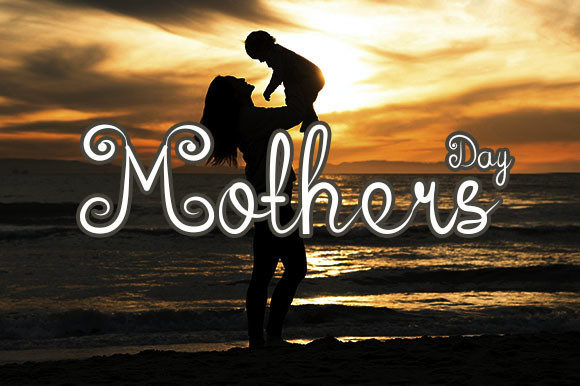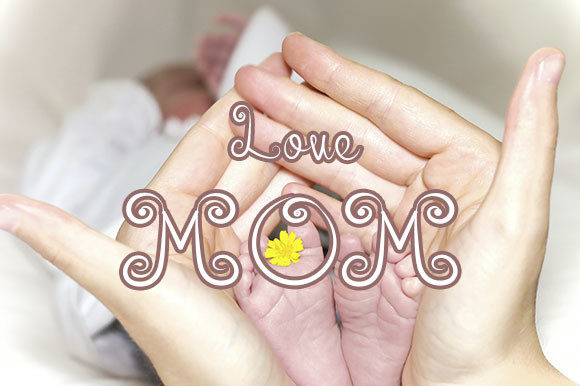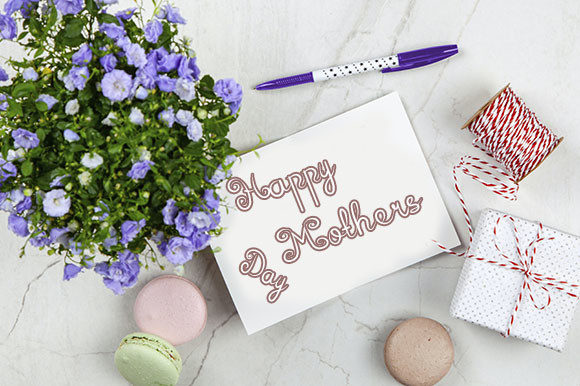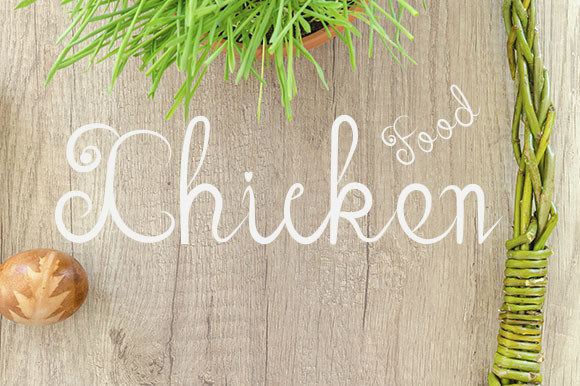
About Mothers Day Font
Mothers Day is an elegant script font with a contemporary atmosphere and impeccable form, inspired by timeless classic calligraphy. Not too thin and not too thick, balanced and varied, this font was designed to enhance the beauty of your projects.